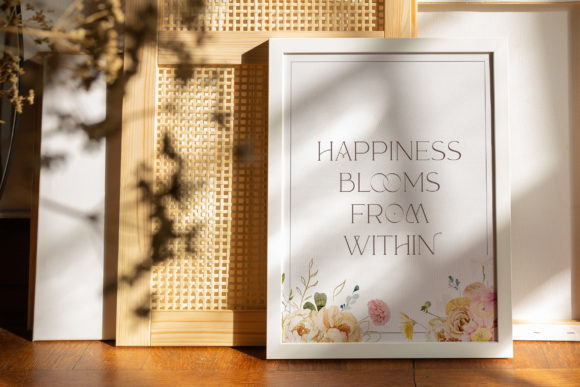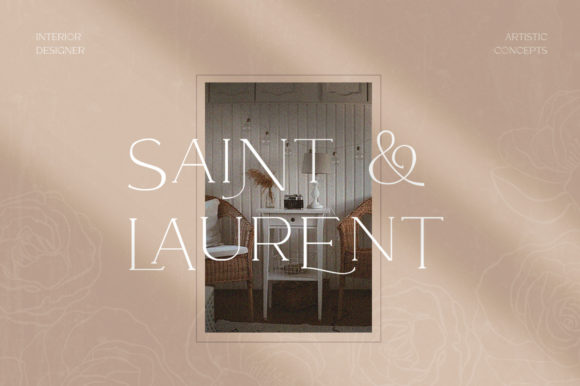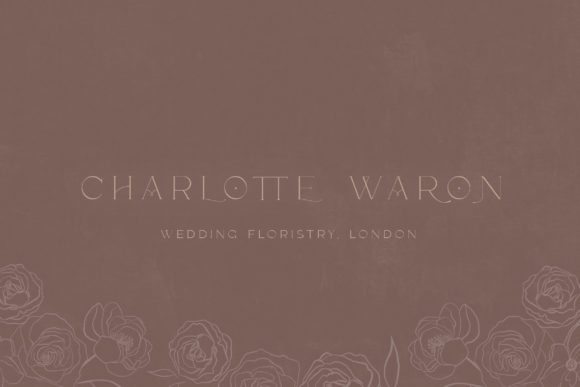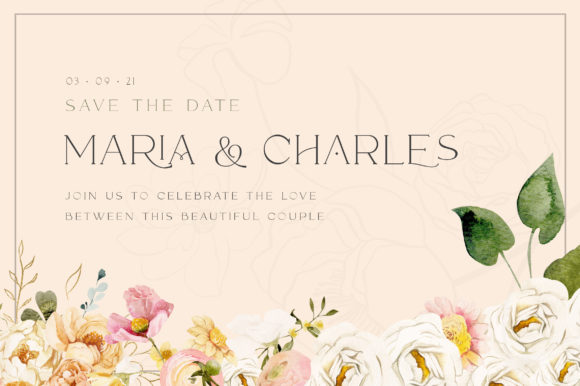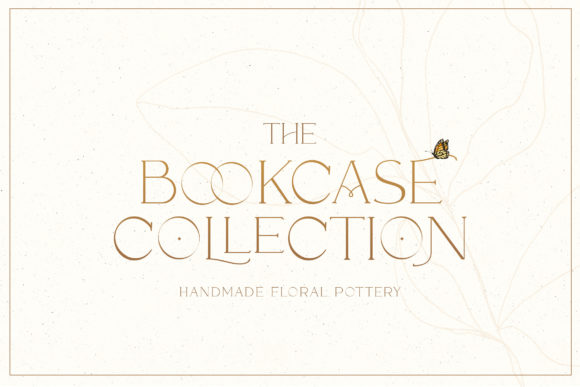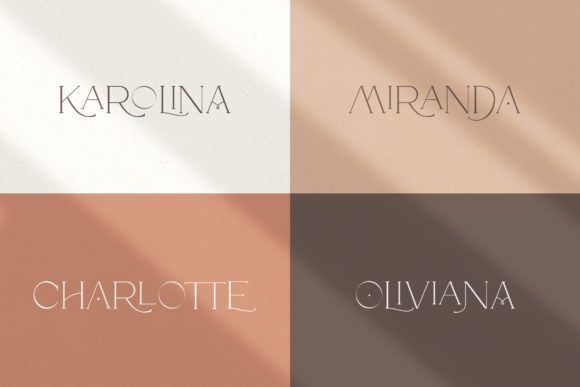
Introduction to Florancia Font
Florancia is a dainty and elegant serif font.
Add this distinct, thin and tall font to each of your favorite creations, and notice how they come alive .